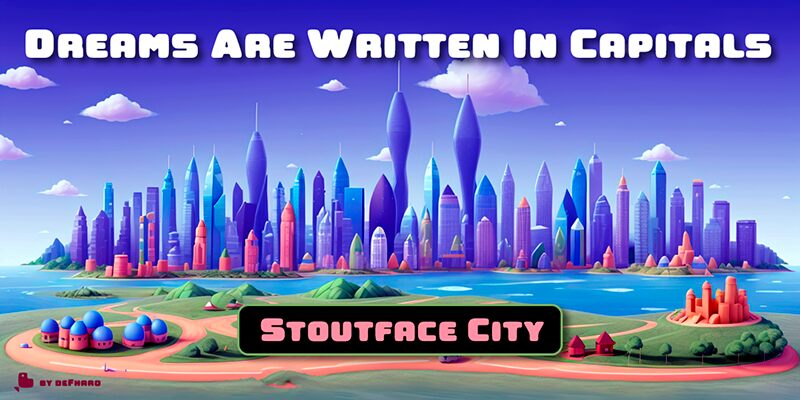
Stoutface SC Small Caps font, crafted by Fernando Haro of deFharo, exudes a bold charisma that commands attention. Its distinctive expanded form gives it a striking presence, making it ideal for projects requiring an assertive and playful touch. The thick strokes provide a sense of strength and stability, while the unique small caps design infuses creativity into any text.
Visually appealing, Stoutface radiates modernity with its contemporary flair, effortlessly bridging traditional typography with today’s design aesthetics. This font is perfect for eye-catching headlines, logos, or branding elements where impact is essential. Its versatility allows it to shine across digital and print media alike-be it in advertising campaigns or artistic invitations-transforming ordinary content into unforgettable statements.
Stoutface Regular and Small Caps, two sans serif typefaces that combine modern boldness with a nostalgic touch. Perfect for capturing attention in great headlines and designs, these fonts come loaded with 720 glyphs and advanced Open Type features. Add sophistication and unique style to your projects with its Small Caps version, ideal for memorable designs that transcend time.